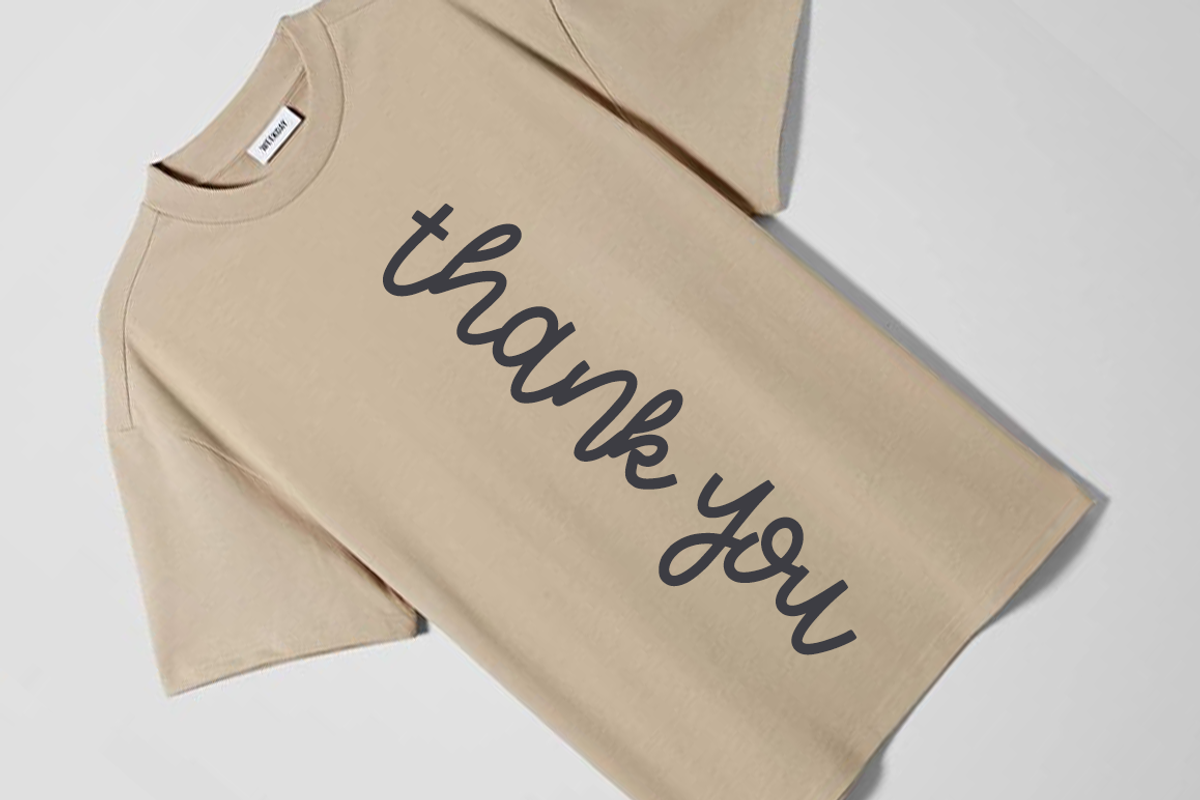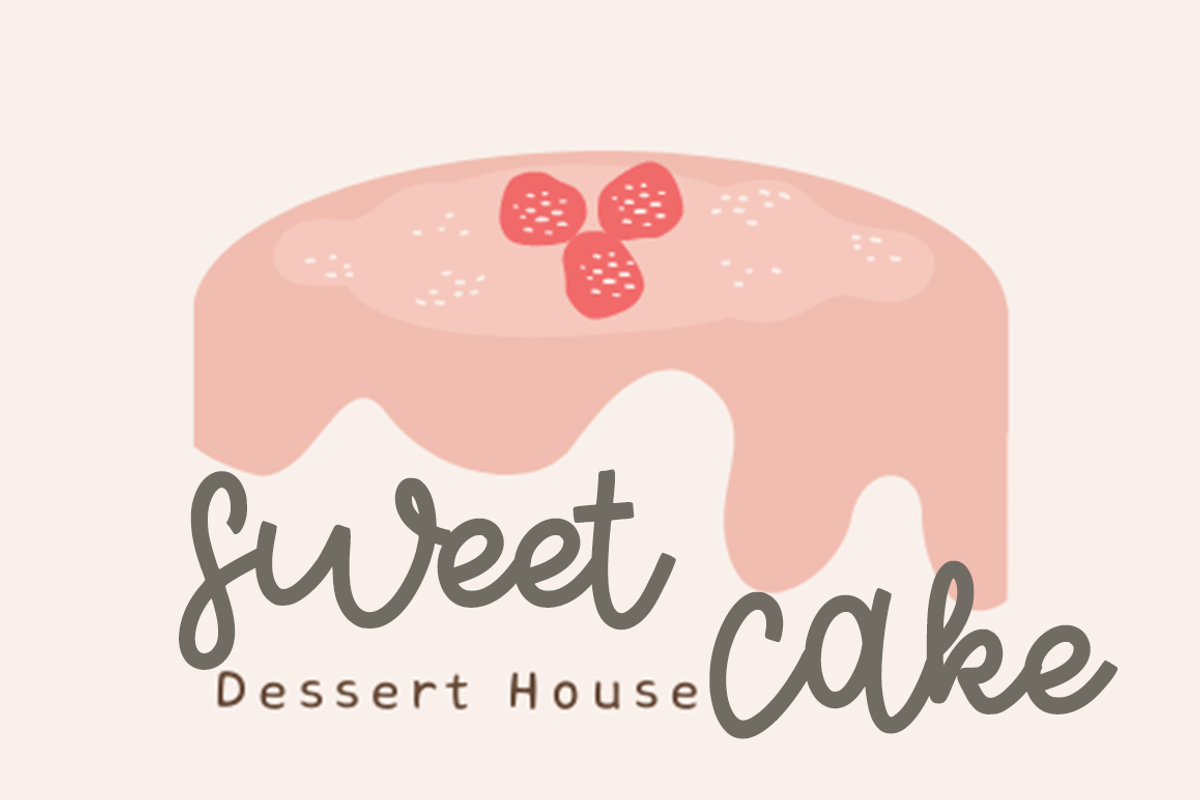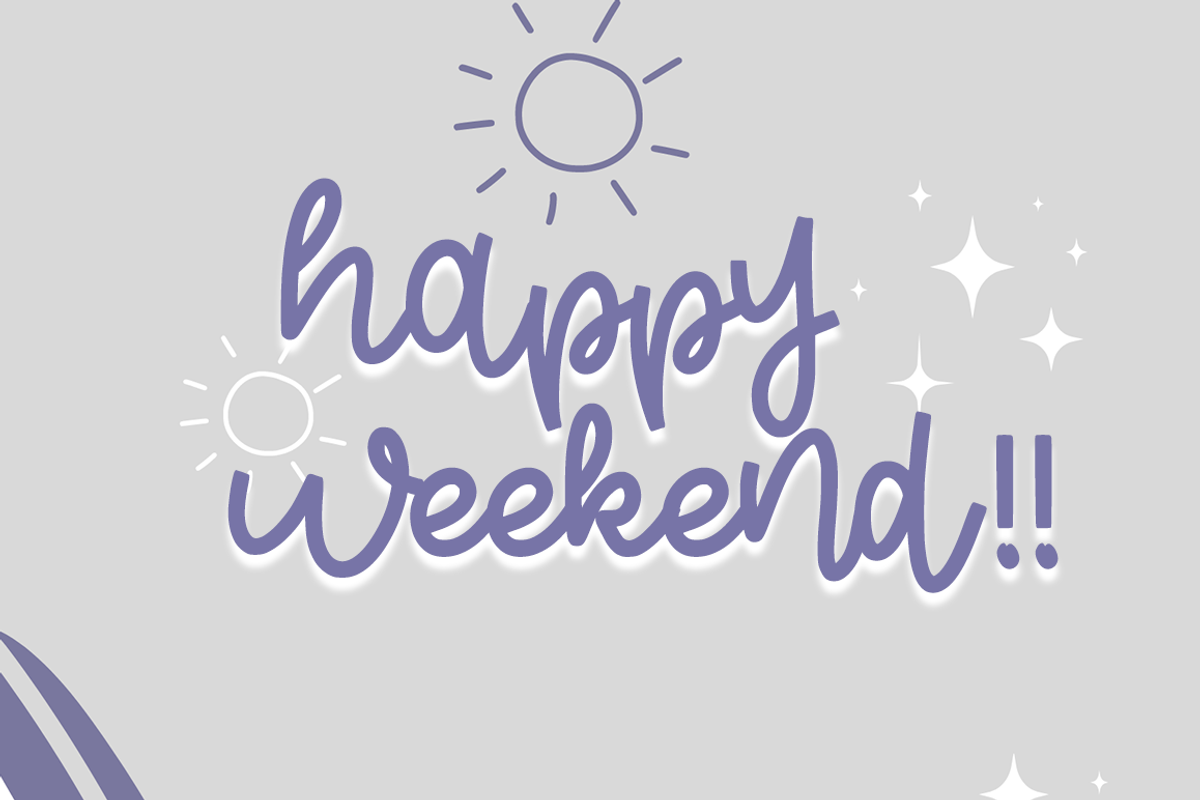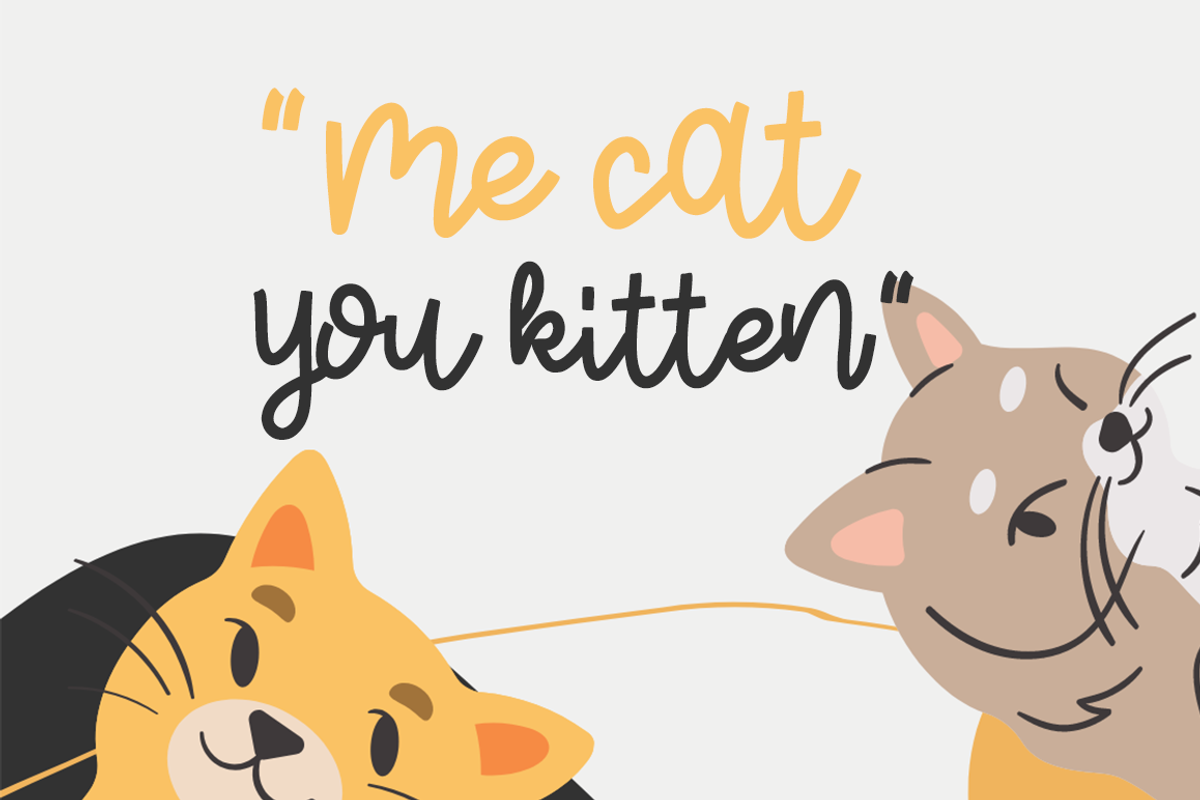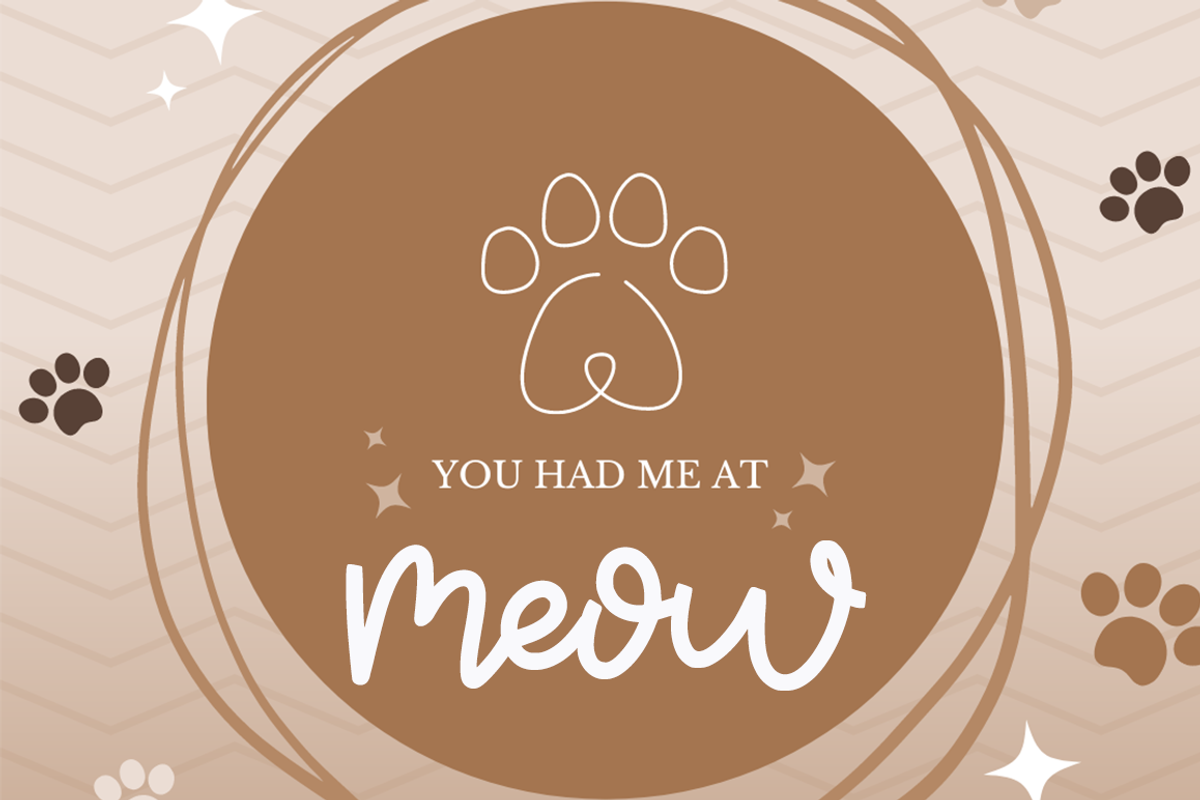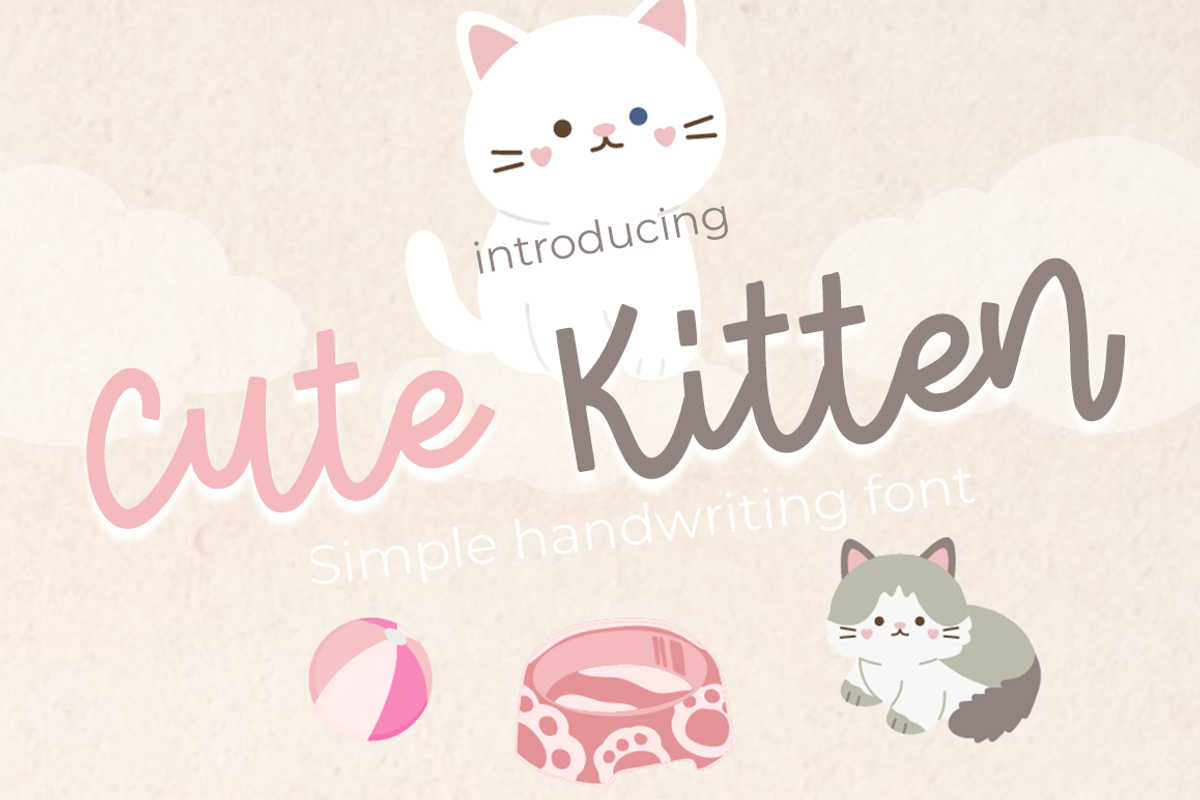
Cute kitten
Cute Kitten, an enchanting handwritten script font with a calligraphy design! Enriched with a unique Regular variant, it effortlessly exudes casual elegance accentuated by an artistic swash. Its versatility shines through in a wide range of applications—from enhancing logos and product packaging to sprucing up wedding invitations. Unleash its charm in your branding, headlines, signage, and labels. It also adds a personalized touch to signatures, book covers, posters, and even adds depth to your favorite quotes. Discover the diverse applications of the Cute Kitten font and let your creativity soar!